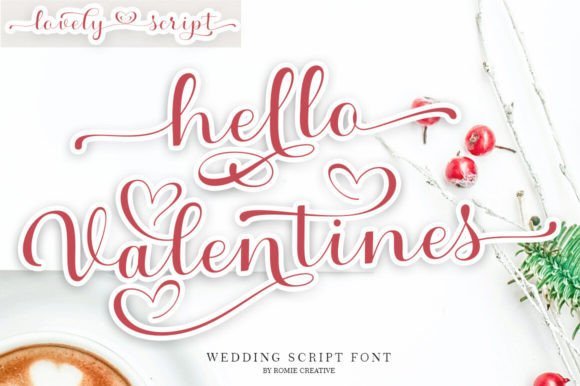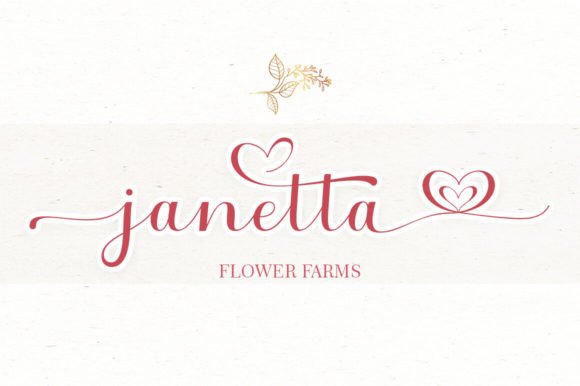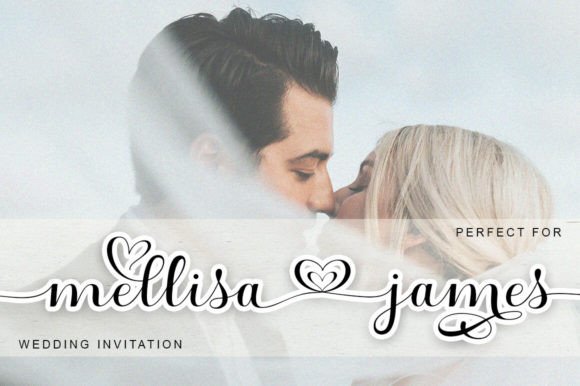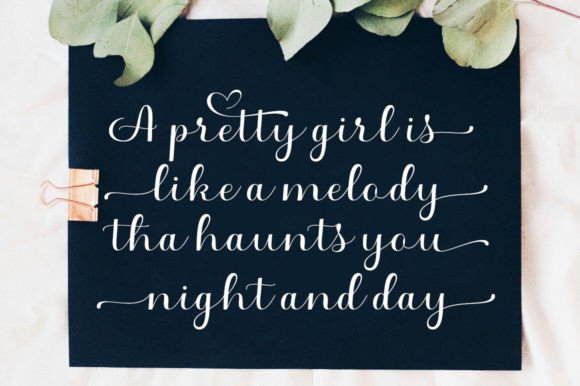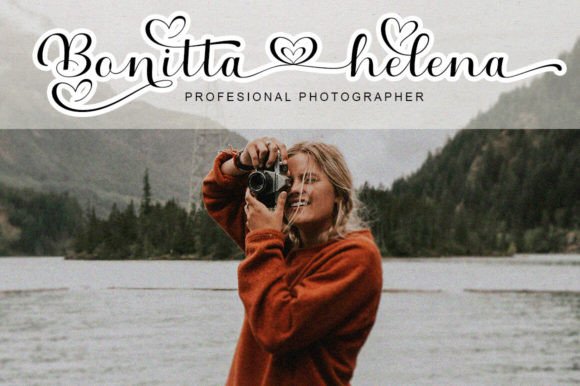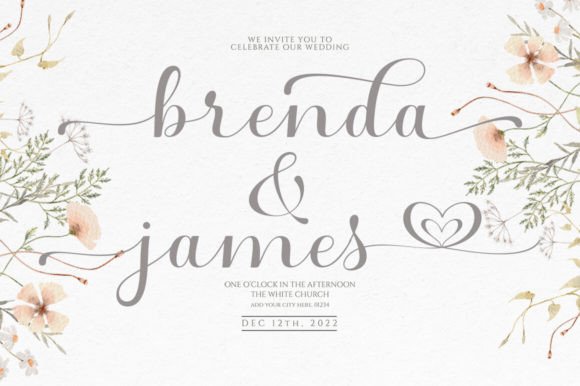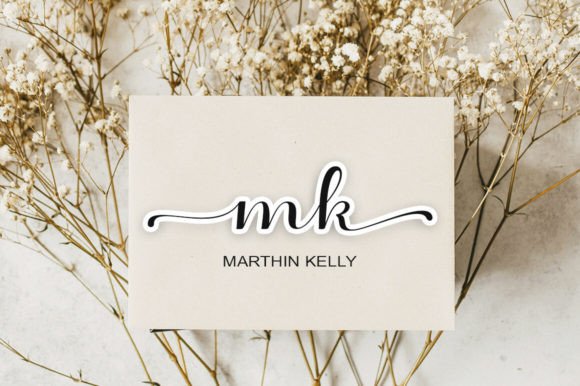
The Perfect Match for Your Creative Projects: Hello Valentines Font
As you sit down to design a wedding invitation or a birthday card, you feel a surge of excitement and creativity. The blank page stares back at you, waiting for the perfect words and typography to bring your vision to life. This is where the Hello Valentines Font comes in – a stylish and trendy typeface that’s sure to make your designs stand out.
This beautiful font is more than just a pretty face; it’s a versatile tool that’s packed with features, including a complete set of lowercase and uppercase letters, assorted punctuation, numbers, and multilingual support. Whether you’re designing for a market, a party, or a special occasion, the Hello Valentines Font is the perfect companion for your creative journey.
As a designer, you’ll appreciate the value of this font, which is perfect for branding, parties, graduations, birthdays, gatherings, and more. With its natural and soft aesthetic, the Hello Valentines Font is sure to make your designs look effortless and stylish, every time.
Hello Valentines Font Key Features
- Font Style: A unique, cursive script font with a romantic and elegant feel.
- Unique Characteristics: Includes alternate characters, swashes, and ligatures to add a personal touch to your designs.
Hello Valentines Font Review
Hello Valentines Font is a lovely, hand-drawn typeface designed specifically for Valentine’s Day and romantic occasions. It works well ✨ for creating a whimsical and charming atmosphere in your designs. The font’s unique, flowing lines and subtle flourishes add a touch of elegance and sophistication. The character set is comprehensive, covering a wide range of languages and characters.
However, there are a few limitations to consider ⚠️. The font’s readability can suffer in smaller text sizes, and some characters may not be as legible as others. Additionally, the font’s hand-drawn nature means it may not be suitable for professional or formal applications. It’s best suited for casual, creative projects where a touch of personality is desired.
Overall, I think Hello Valentines Font is a great choice for designers looking to add a bit of romance and whimsy to their projects. While it may have some limitations, its unique charm and character make it a standout choice for Valentine’s Day and other special occasions.
- ✨ Whimsical and charming atmosphere
- ✨ Unique, flowing lines and subtle flourishes
- ✨ Comprehensive character set
- ⚠️ Limited readability in smaller text sizes
- ⚠️ May not be suitable for formal applications
The Hello Valentines font is perfect for creating romantic and whimsical designs for Valentine’s Day and other love-themed occasions.
Use it for:
- Valentine’s Day cards and invitations.
- Romantic social media posts and captions.
- Wedding and engagement announcements.
- Love-themed merchandise and branding.